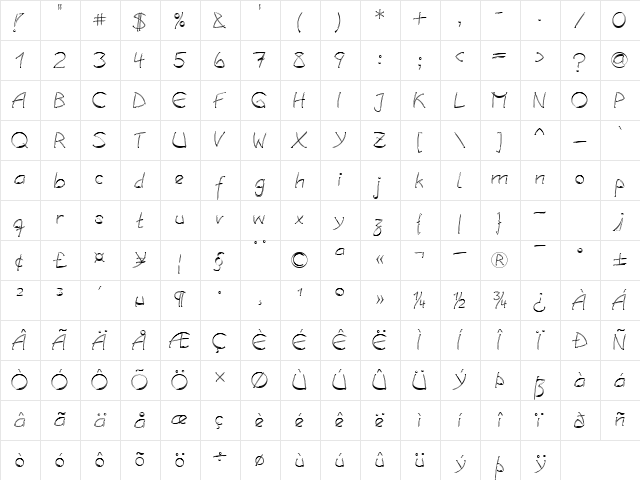
Complete LTSalamanderDbl Regular glyph index. Displaying only characters natively supported by LTSalamanderDbl Regular font.
LTSalamanderDbl Regular is a composed and adaptable typeface that performs quietly and consistently across a wide range of design contexts.